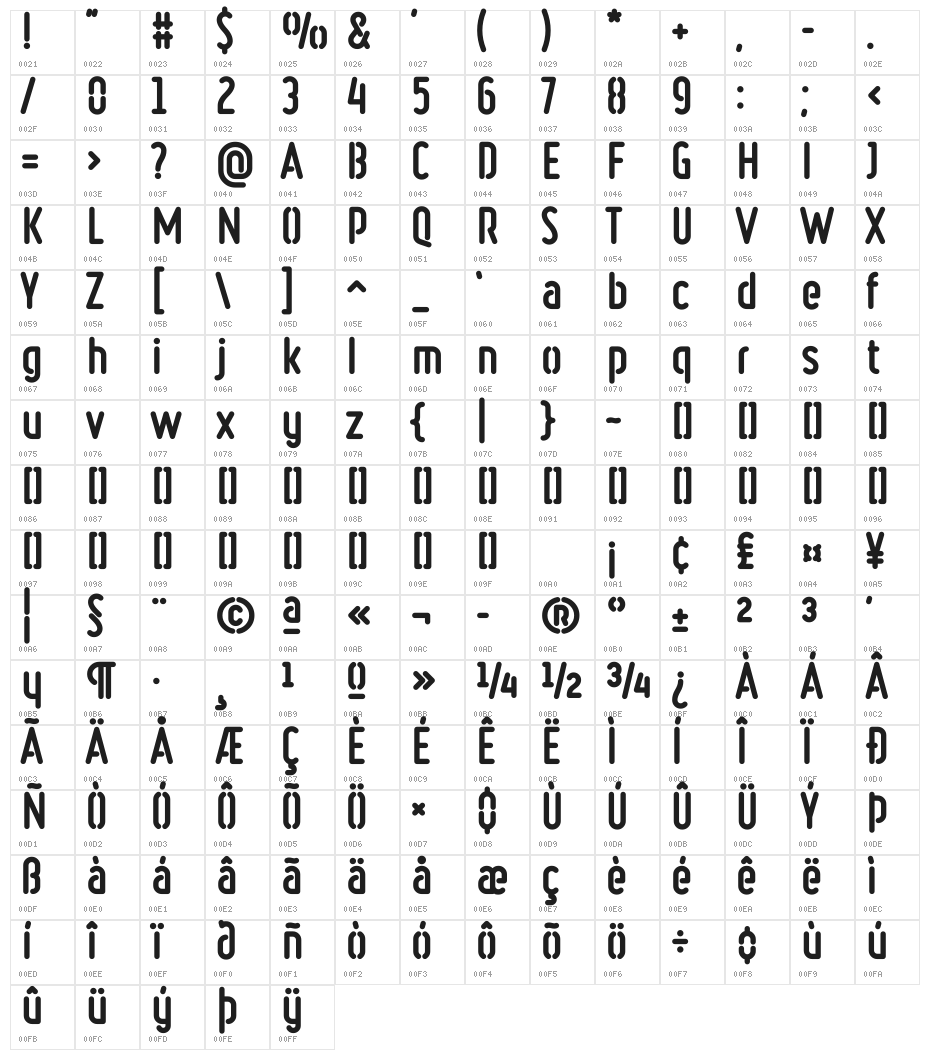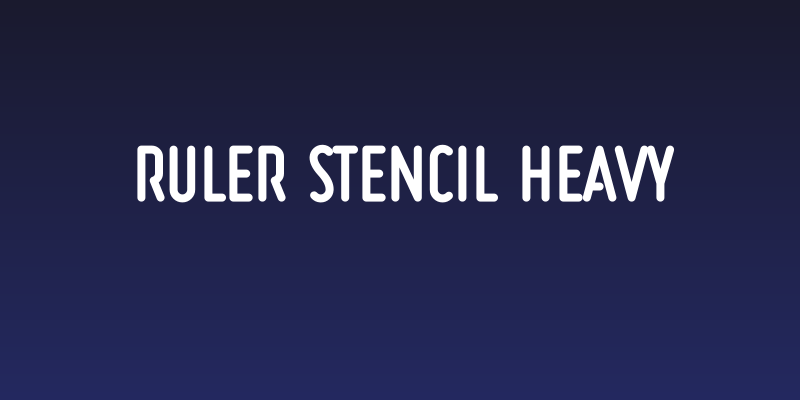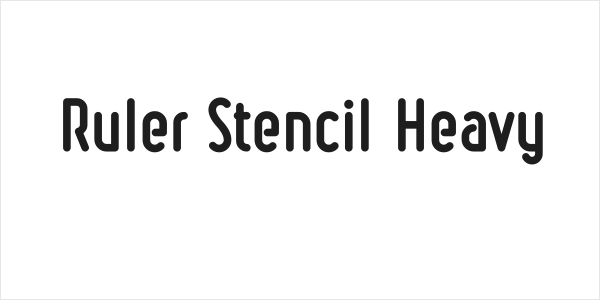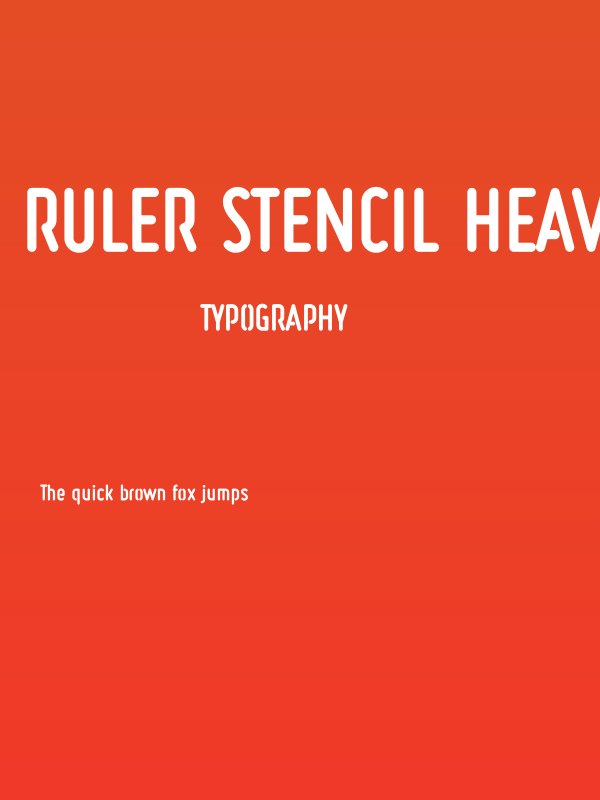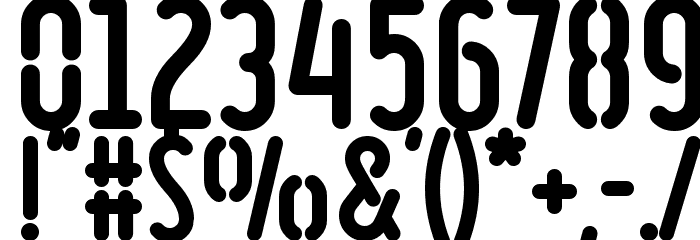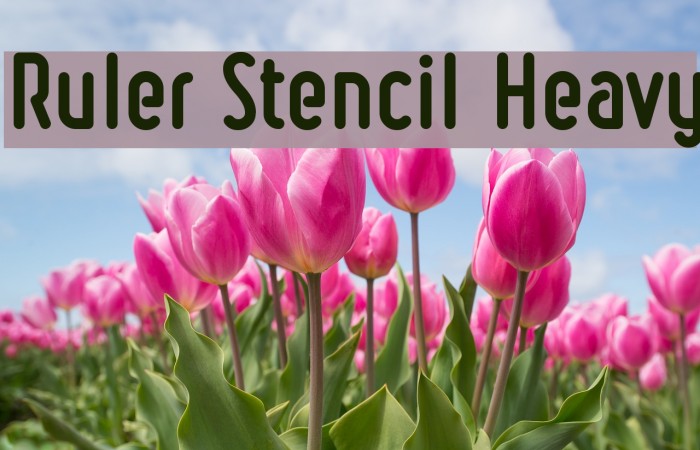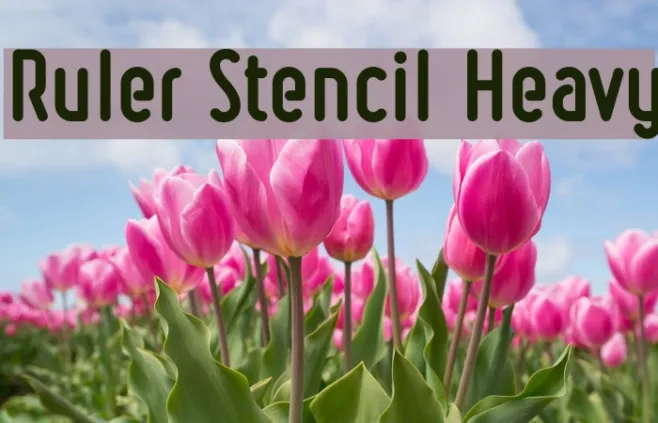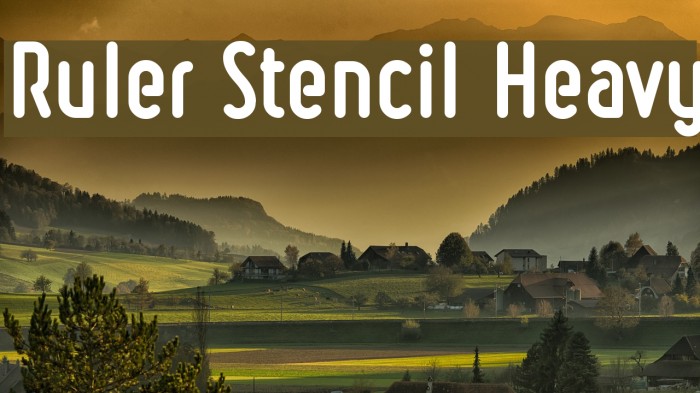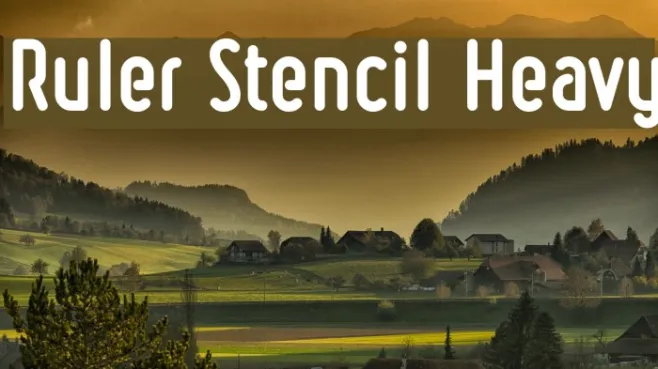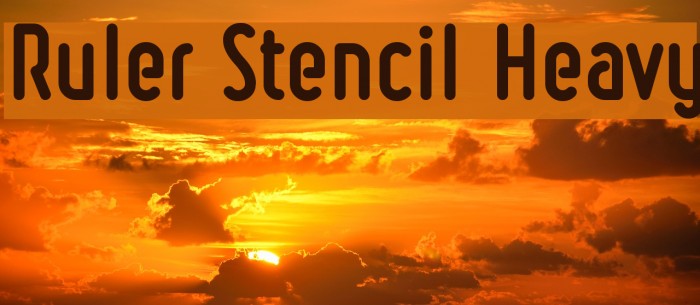
Ruler Stencil Heavy Font
Ruler Stencil Heavy Description
This font features a bold, stencil-like design with rounded edges and a heavy weight. The characters are uniformly thick, creating a strong visual impact. The stencil style is evident in the breaks within the strokes, giving it an industrial and utilitarian feel. The uppercase and lowercase letters maintain a consistent style, with the lowercase letters slightly more rounded. The numerals and special characters follow the same design principles, ensuring uniformity across all glyphs. This font is highly legible and commands attention, making it suitable for various display purposes.